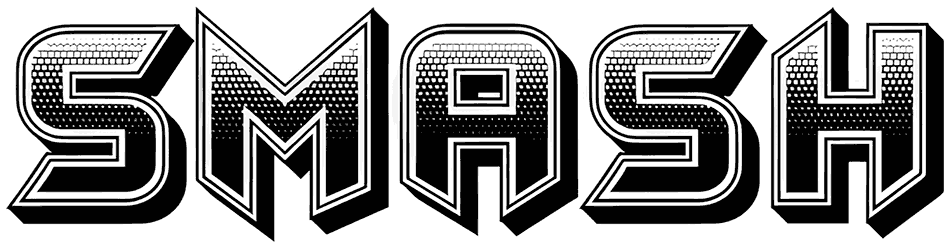
Smash Font
Smash is a techno font with an old and bold form. Your present design could have a race-style face and whimsy vibe with this 3D font even without lowercase support. Give this retro font a try and set it for your future projects such as posters, match games, covers, and a lot more others the like.